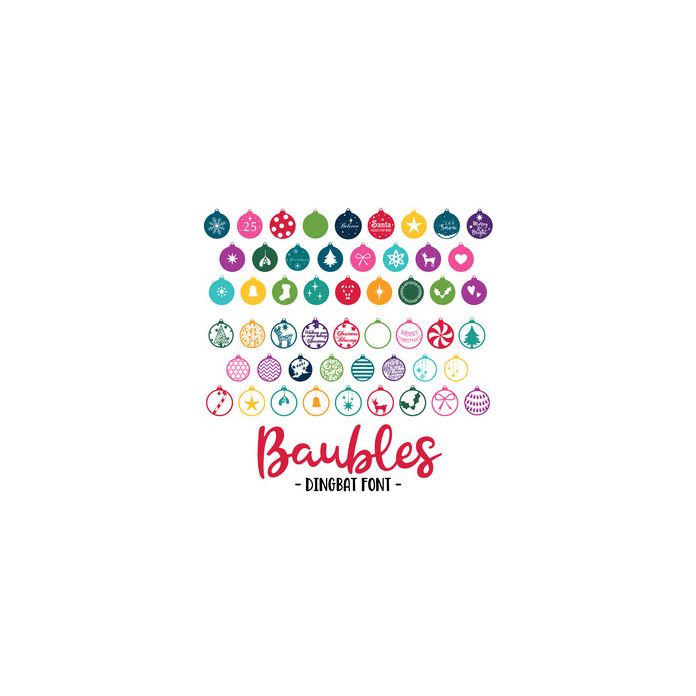
Christmas Baubles Dingbat Font. This bumper font includes 52 decorative seasonal Bauble decorations, perfect for card making sentiments, inserts, scrapbooking, gifts and more seasonal projects! Can also be used with my Trim the Tree font here in the Silhouette store!. All solid baubles are assigned to an upper case letter and all outline silhouette baubles are allocated to a lowercase letter, starting with 'A' or can be accessed via glyphs. For more design ideas, coordinating designs & products and inspiration, please visit my blog http://www.sarahhurleyblog.com